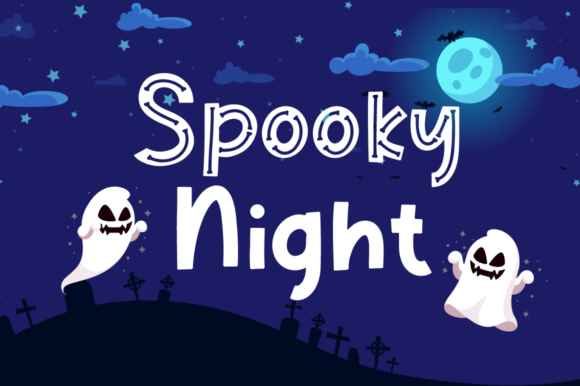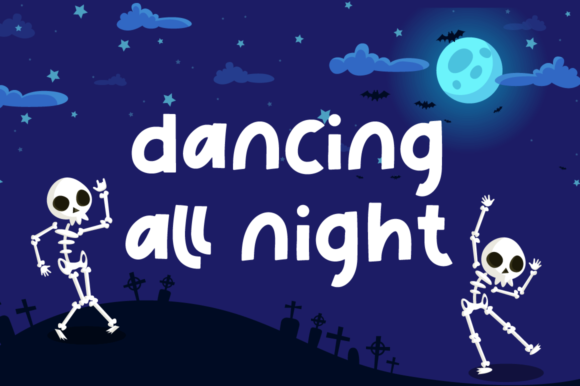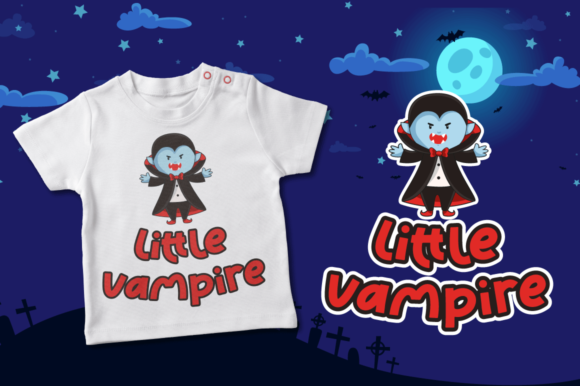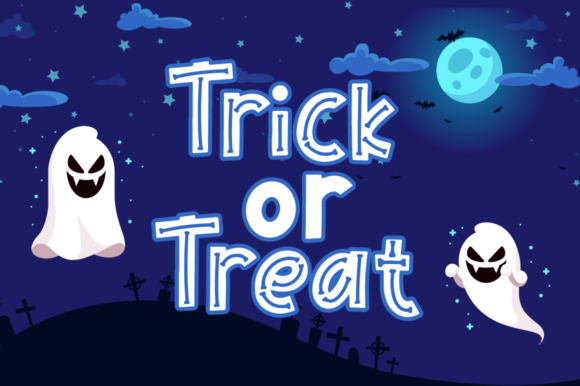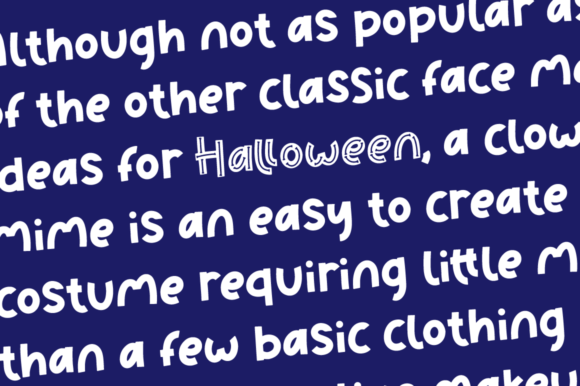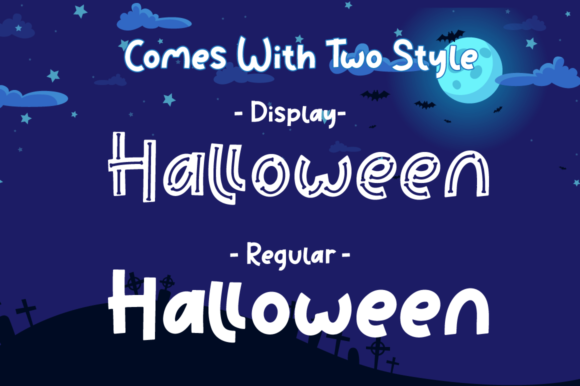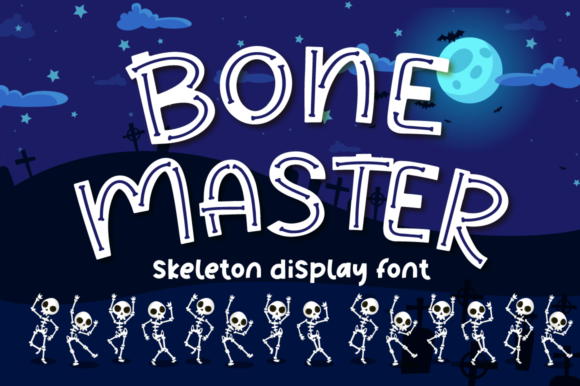
Bone Master Font: Elevate Your Designs with a Bold and Authentic Display Font
In the world of typography, a font can make or break a design. It’s the foundation upon which the entire visual identity is built. For designers and crafters looking to add a touch of uniqueness and boldness to their creations, the Bone Master Font is an excellent choice. This display font is not just any ordinary font; it’s a statement maker. With its simple yet unique style, Bone Master is incredibly versatile, making it suitable for a wide range of contexts.
The Uniqueness of Bone Master Font
Bone Master Font stands out from the crowd due to its bold and authentic style. It’s designed to grab attention and make your designs pop. Whether you’re working on a branding project, a poster, a website, or any other visual material, Bone Master can add that extra oomph needed to make it stand out. Its simplicity is its strength; it doesn’t overwhelm the viewer with too much complexity, making it easy to read and understand.
One of the key benefits of the Bone Master Font is its versatility. It can be used in various contexts, from formal to informal settings. For instance, it can be used for:
- Branding: Create a memorable brand identity with Bone Master. Its boldness ensures that your brand name or slogan doesn’t go unnoticed.
- Posters and Flyers: Make your posters and flyers stand out with this eye-catching font. It’s perfect for headings and titles.
- Web Design: Use Bone Master as a display font for your website headers or titles. It will surely make your website more engaging.
- Social Media Graphics: Enhance your social media presence with captivating graphics featuring Bone Master Font.
- Crafting and DIY Projects: Whether you’re creating handmade cards, decorations, or any other craft, Bone Master can add a professional touch to your projects.
Why Choose Bone Master Font?
There are several reasons why Bone Master Font should be your go-to choice for your next design project:
- Easy to Read: Despite its boldness, Bone Master maintains a high level of readability. This makes it perfect for use in various mediums.
- Unique Style: In a sea of fonts, Bone Master offers a breath of fresh air with its unique and simple style.
- Time-Saving: With Bone Master, you don’t have to spend hours designing a font from scratch. It’s readily available and easy to integrate into your projects.
- Cost-Effective: Offering a professional look without the hefty price tag, Bone Master is a cost-effective solution for designers and crafters.
How to Make the Most of Bone Master Font
To truly leverage the potential of Bone Master Font, consider the following tips:
- Pair it Wisely: When using Bone Master with other fonts, ensure they complement each other. A simple, sans-serif font can work well for the body text.
- Experiment with Sizes: Don’t be afraid to experiment with different sizes. Bone Master looks great in both large and smaller sizes.
- Color Matters: Choose colors that align with your brand or design theme. Bone Master can work well with both bright and muted colors.
Bone Master Font is more than just a display font; it’s a tool that can elevate your designs to new heights. Its bold and authentic style, coupled with its versatility, makes it an excellent choice for designers and crafters alike. Whether you’re looking to make a statement with your branding, add some flair to your website, or simply give your crafting projects a professional edge, Bone Master Font is the way to go. So, add it to your creative arsenal and watch your designs stand out like never before.